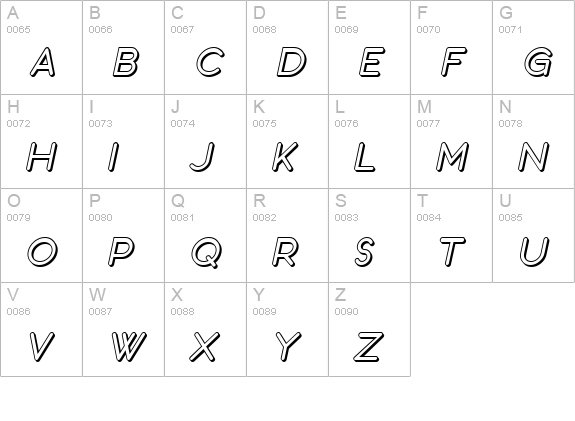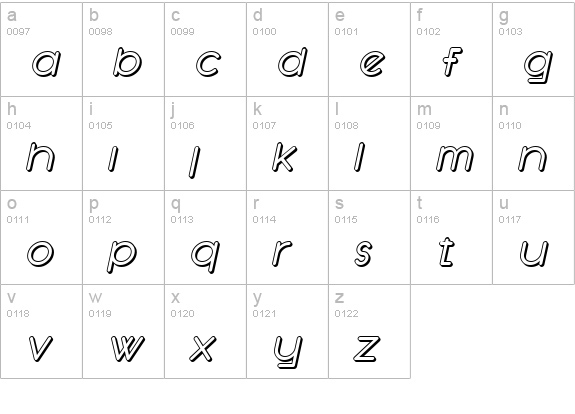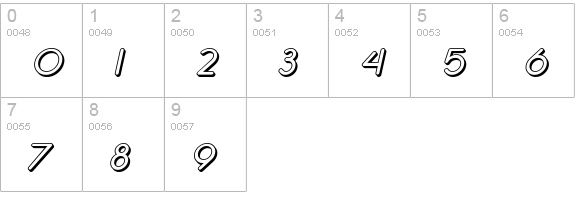
SF Orson Casual Shaded Oblique Font Details
SF Orson Casual Shaded Oblique is a distinctive, italic variant in the SF typeface family \xE2\x80\x94 well suited to design and typography projects.
SF Orson Casual Shaded Oblique is a unique and versatile font that effortlessly combines modernity with a touch of elegance. Its casual yet refined design makes it perfect for a wide range of creative projects, from branding and advertising to web design and print materials. With its slanted and shaded letterforms, SF Orson Casual Shaded Oblique adds depth and dimension to any text. Each character is meticulously crafted, ensuring legibility and visual impact, even at small sizes. The oblique angle provides a sense of movement and dynamism, making this font an excellent choice for adding a contemporary twist to your designs. What sets SF Orson Casual Shaded Oblique apart is not just its aesthetic appeal, but also the fact that it is available for free. That's right, you can freely download this font at FontsMarket.com. Whether you're a professional designer looking to add a unique touch to your projects or a hobbyist searching for a font that stands out, SF Orson Casual Shaded Oblique is the perfect choice. So why wait? Unlock your creativity and explore the endless possibilities offered by SF Orson Casual Shaded Oblique. Download it for free today at FontsMarket.com and give your designs that extra edge they deserve.